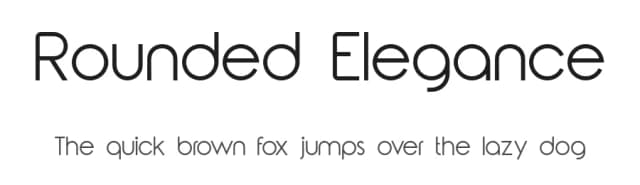
About Soft Elegance Font
Eu me baseei nas fontes estilo "Petita Medium" e "Signoria Bold" para criar esta. Minha intenção foi desenvolver uma fonte limpa e elegante, de ótima visualização, mesmo em smartphones. Gostei muito do resultado e por isso resolvi compartilhar com todos. Espero que gostem.
I have based the style sources 'Petita Medium' and 'Signoria Bold' to create this. My intention was to develop a clean and elegant source of great viewing even in smartphones. It very much liked and so I decided to share with everyone. I hope you enjoy.
| Designer | Douglas Charles cunha |
Soft Elegance Font is a versatile sans-serif font that works for both headings and body text. Pair it with a contrasting serif or slab serif font to add visual interest and a clear distinction between titles and body copy.
Soft Elegance Font
by Genumano